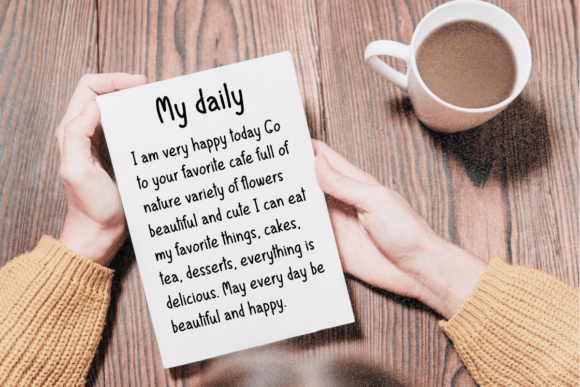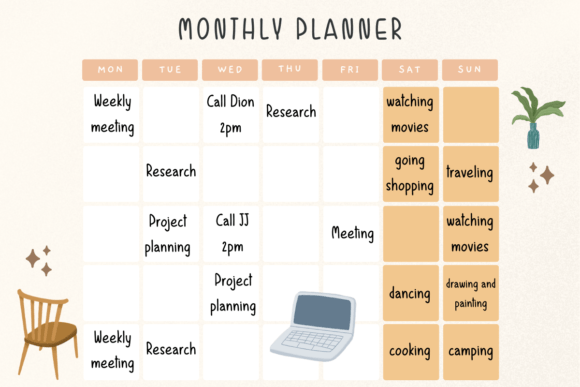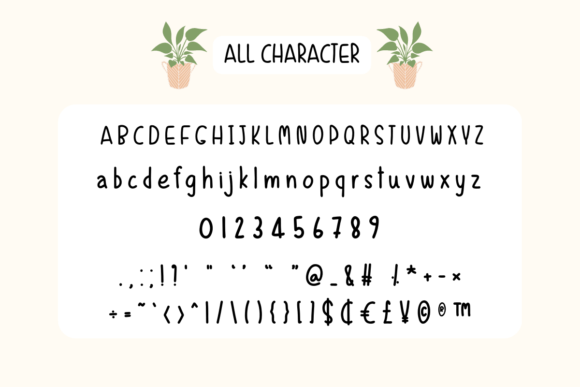
Weekly Planner Font
Weekly Planner is a cute handwritten font Simple and cute, yet charming, can be used to create a variety of works. Versatile, can be used in a variety of applications from crafts for kids, teachers, to greeting cards. text on the product to become the centerpiece of your design.